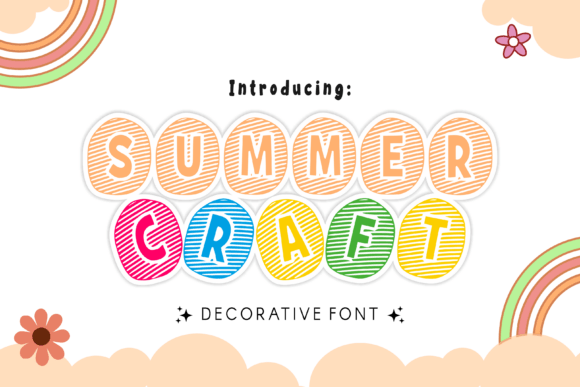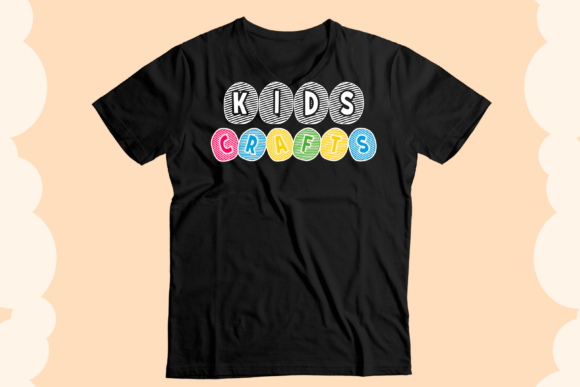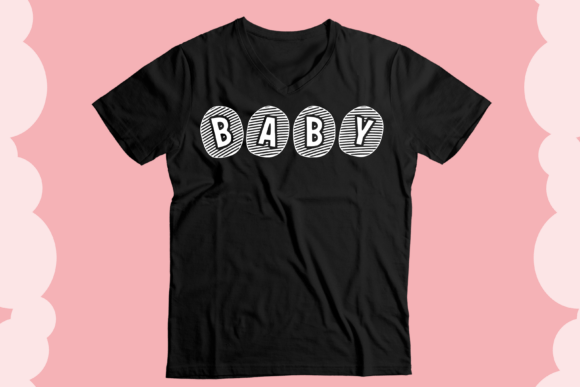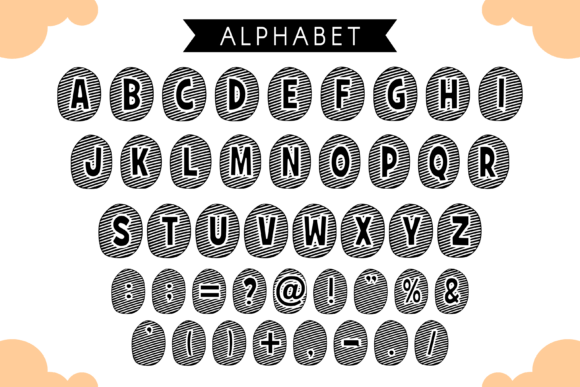
Summer Craft Font
About the Summer Craft Font
Meet Summer Craft Font, a stunning font that brings a touch of elegance and professionalism to any design. Unveiling “Summer Craft,” a delightfully artistic font that captures the essence of summer. Each letter of this vibrant font oozes uniqueness, adding charm and magic to your various creative ventures. Whether you’re utilizing it for apparel designs like t-shirts, accessories like mugs and bags, or using it to enliven logos and greeting cards, ‘Summer Craft’ promises to bring a refreshing vibe to your project. More so, it’s highly reliable for your digital ventures, ensuring that every creation becomes an impressive work of art.
Summer Craft Font Usage Examples
Summer Craft Font Example